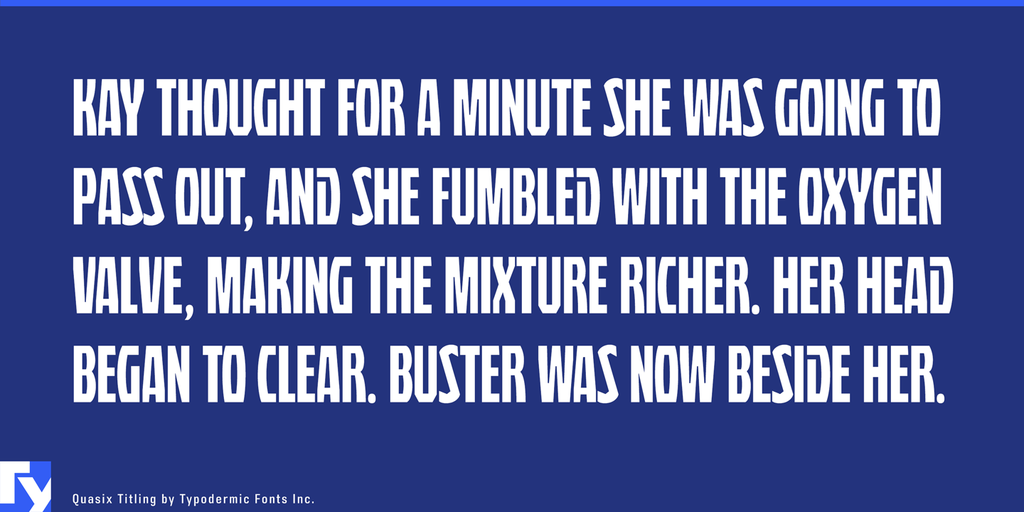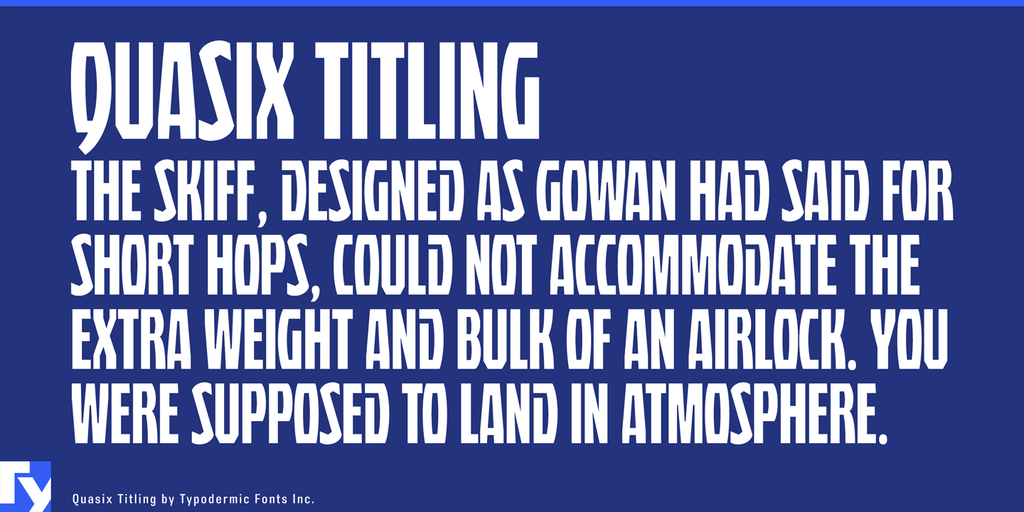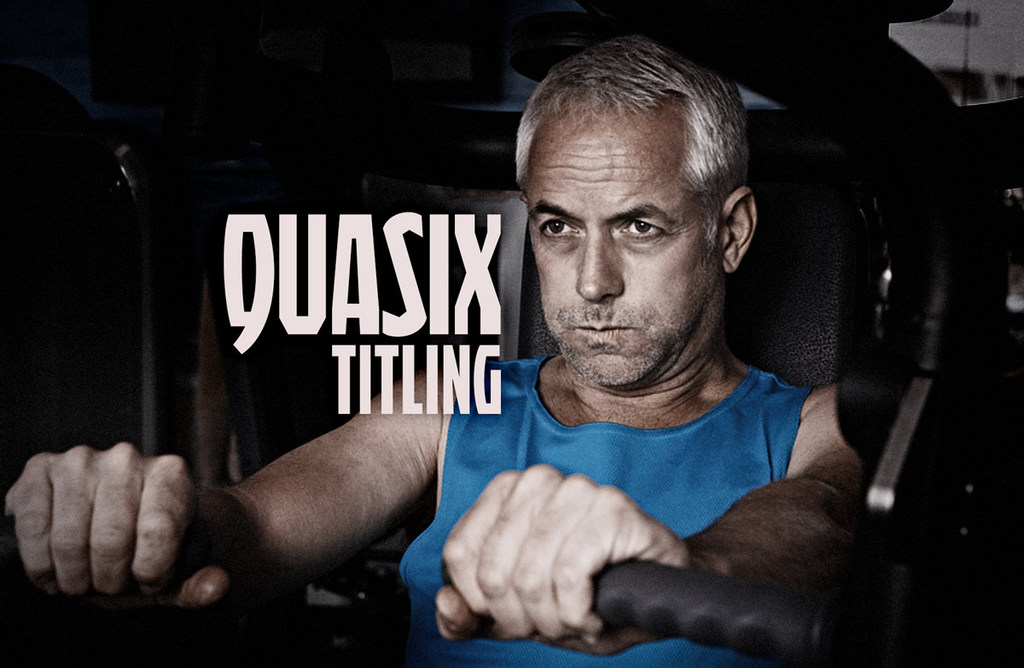
Quasix Titling Font
Quasix Titling is a compact all-caps industrial face with quirky construction and a resourceful, repaired character. It suits salvage businesses, maker projects, robot workshops, e-waste programs, repair cafés, game environments, equipment labels, packaging, and identities built around reuse and practical invention.